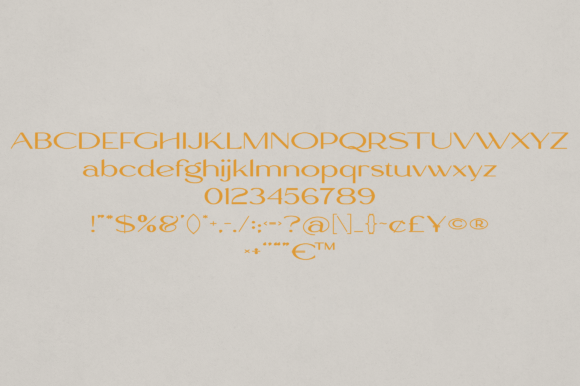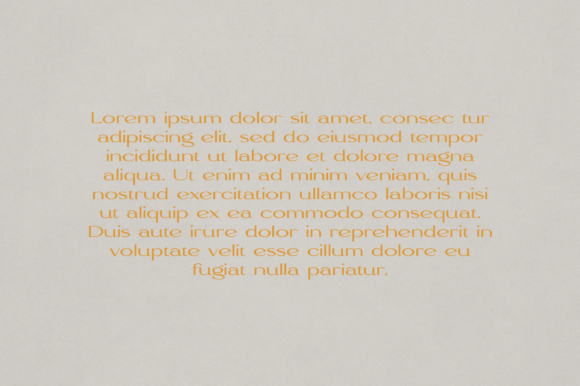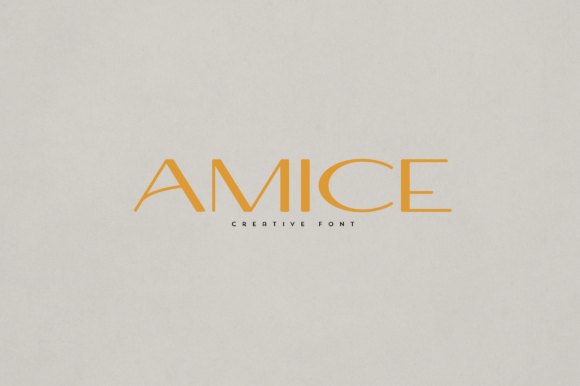
Introducing Amice Font: Elevate Your Typography with Elegance and Versatility
In the world of typography, a font can make or break the visual identity of a project. For designers and crafters seeking to add a touch of sophistication and uniqueness to their work, the Amice Font is an exceptional choice. This elegant and versatile font is designed to enchant every logo, branding, headline, or plain text, making it perfect for a wide range of applications.
What Makes Amice Font Stand Out?
Amice Font is not just another addition to the vast sea of typefaces. Its distinctive characteristics set it apart, making it an invaluable asset for any creative project. Here are some features that make Amice Font truly special:
- Elegance and Versatility: Amice Font boasts an elegant design that can seamlessly adapt to various contexts, from luxurious branding projects to stylish home-ware designs.
- Wide Range of Applications: Whether you’re working on product packaging, magazine headers, or simply looking for a sophisticated text overlay for a background image, Amice Font is up to the task.
- Unique Typography: With Amice Font, you can ensure your typography stands out. Its unique style will add a touch of personality to your work, making it more engaging and memorable.
Designers and crafters are constantly on the lookout for elements that can give their projects that extra edge. Amice Font is crafted with this need in mind, offering a stylish and sophisticated solution for:
- Branding Projects: Create a lasting impression with elegant and memorable logos and branding materials.
- Home-Ware Designs: Add a touch of luxury and sophistication to your home-ware designs, making them stand out in a crowded market.
- Product Packaging: Elevate your product packaging with a font that exudes quality and elegance.
- Magazine Headers: Make your magazine headers pop with a stylish and eye-catching font.
Why Choose Amice Font?
With so many fonts available, why should Amice Font be your go-to choice? Here are a few compelling reasons:
- Uniqueness: Amice Font offers a unique style that will set your work apart from the competition.
- Versatility: Its adaptability makes it suitable for a wide range of projects and applications.
- Ease of Use: Designed with the user in mind, Amice Font is easy to integrate into your projects, making it a hassle-free addition to your design toolkit.
Tips for Using Amice Font Effectively
To get the most out of Amice Font, consider the following tips:
- Pair it Wisely: Experiment with font pairings to find the perfect match for your project. Amice Font works well with both serif and sans-serif fonts.
- Adjust Size and Weight: Play around with different sizes and weights to create visual hierarchy and add depth to your typography.
- Consider Context: Think about the context in which your typography will be used. Adjust the color and style of Amice Font to ensure it complements your background and overall design.
Amice Font is more than just a typeface; it’s a tool for designers and crafters to elevate their work and make it truly unique. Its elegance, versatility, and distinctive style make it an excellent choice for a wide range of applications. Whether you’re working on branding projects, home-ware designs, product packaging, or simply looking for a stylish text overlay, Amice Font is sure to enchant and inspire. Make your typography stand out with Amice Font and take your creative projects to the next level.